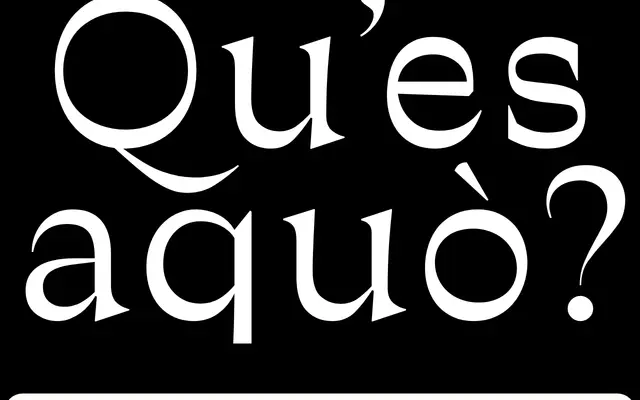
Traulha
Bureau Brut · Yoann Minet · 2017
A five-style family by Yoann Minet conceived around the phonetic structures of Occitan, with a system of language-specific ligatures at its core.
Designed as a final project at the Estienne School of Design in 2013 and published by Bureau Brut in 2017, Traulha takes its formal logic from Occitan diphthongs and recurring letter pairs such as 'lh' and 'nl', turning them into a set of structural ligatures. The flagship Regulara style introduces a selective inversion of stroke contrast on letters like 'o', 'e' and 's', giving the text a distinctive typographic rhythm without resorting to decorative regionalism. The family spans two serif styles, a sans, and two italics, covering use cases from body text in small editions to press and signage.
Traulha Regulara is a serif with deliberate contrast inversions on certain letters, rooted in humanist structure; the family also includes a sans (Lineara) and italic variants, but the primary design voice is a structured serif informed by the Occitan linguistic tradition.